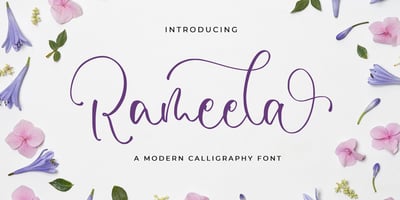
Rameela
Rameela font
Rameela Font Family was designed by Novia Himatunnisa and published by Nissa Nana. Rameela contains 1 styles and family package options. Rameela is a lovely and delicate script font that exudes elegance and class. This font is perfect for those who need a beautiful and refreshing look to their designs.